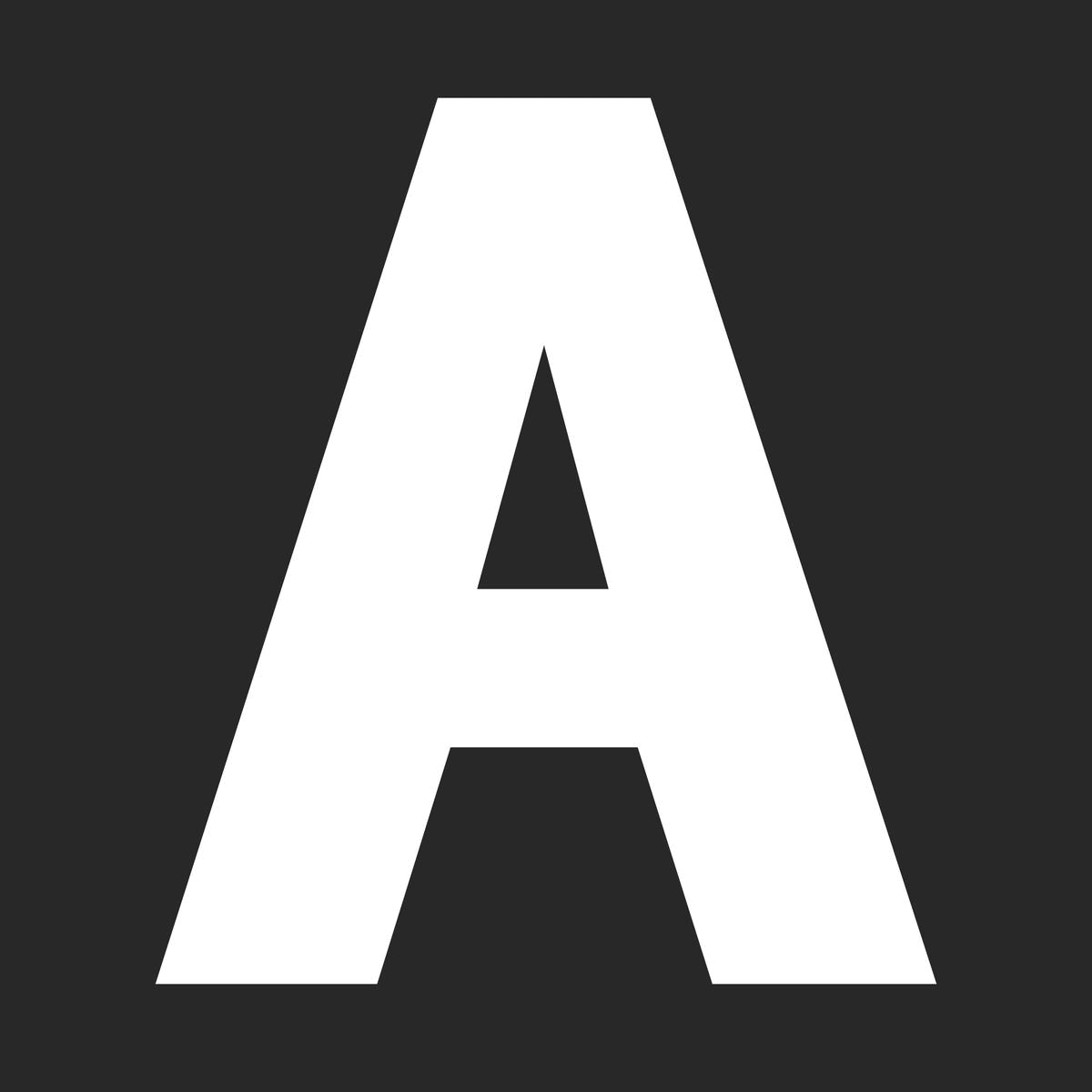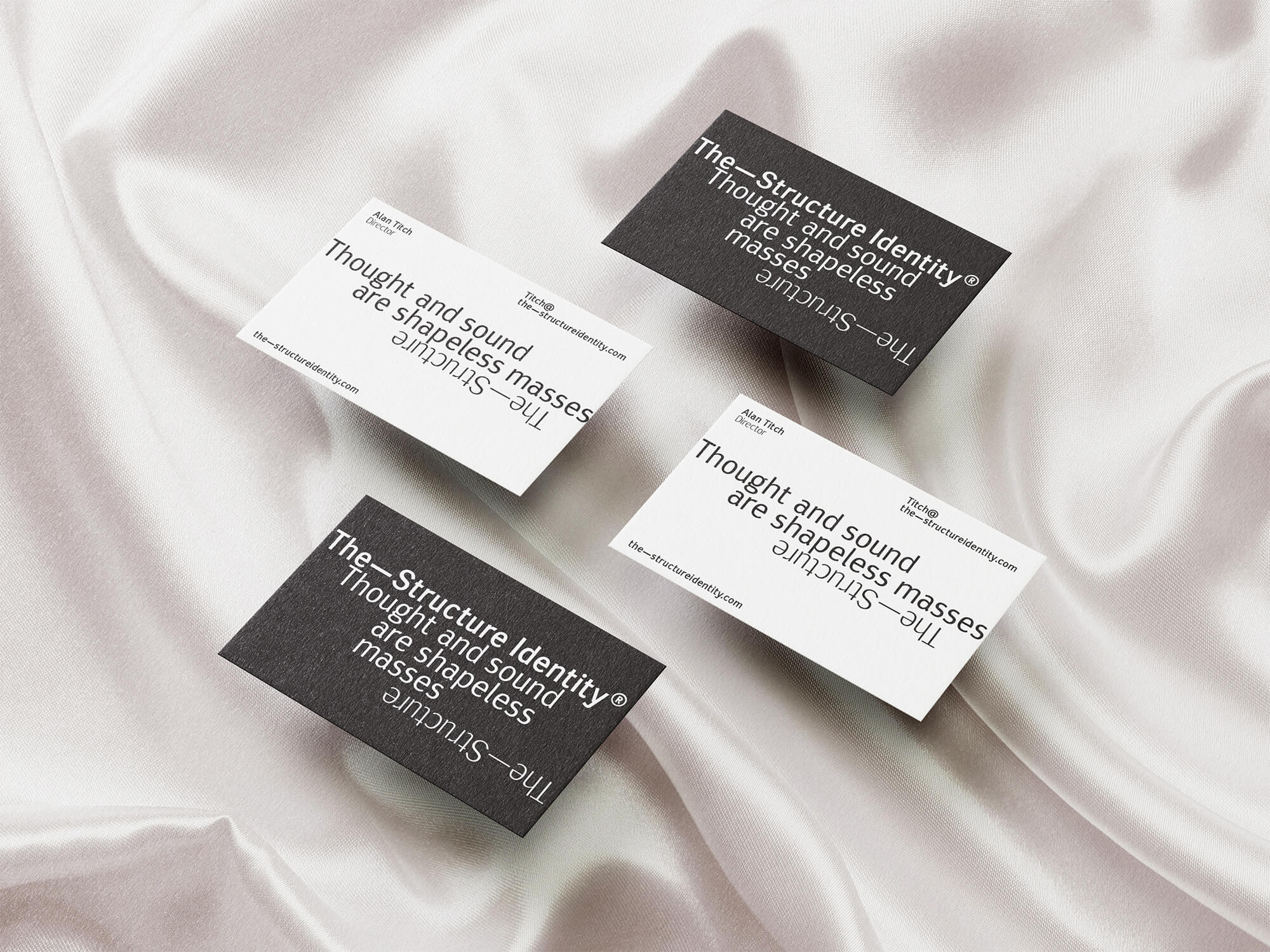
Suss Sans is an elegant contemporary sans serif typeface with strong stylistic geometric contrasts. The distinctive stance was designed to give the right visual consistency for branding communications. Suss Sans is perfectly suited for headlines, large-format prints, brand identities, social media, advertising, editorial design, posters, magazines, logos, headings, body copy, digital and more.
Suss Sans supports up to 79 different languages such as Spanish, English, Portuguese, German, French, Turkish, Italian, Polish, Kurdish (Latin), Azerbaijani (Latin), Romanian, Dutch, Hungarian, Serbian (Latin), Kazakh (Latin), Czech, Swedish, Croatian, Slovak, Finnish, Danish, Lithuanian, Latvian, Slovenian, Irish, Estonian, Basque, Icelandic, and Luxembourgian in Latin and other scripts.